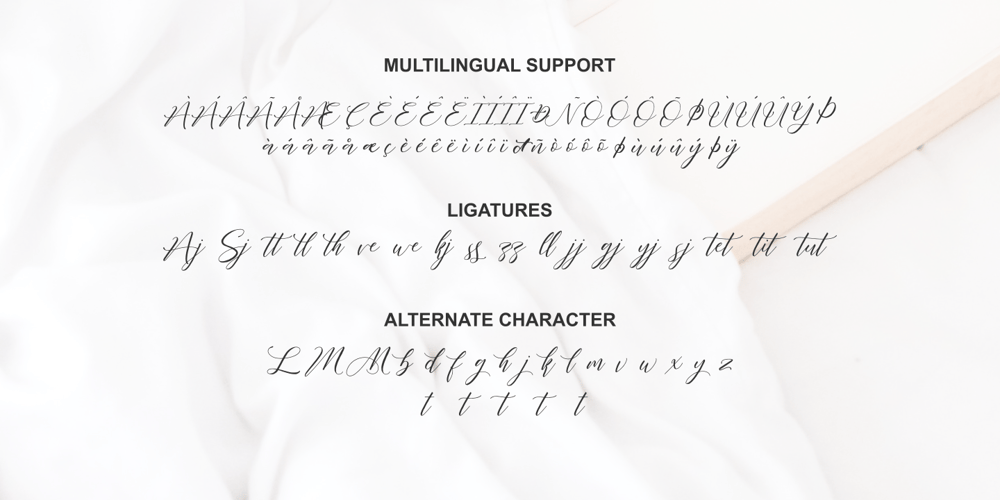
Fathir Script Font Family was designed by Abo Daniel and published by Abo Daniel. Fathir Script contains 1 styles and family package options. Fathir is made with a true real handwritten style. The font comes with three style of titling and ending swash. It is very easy to access the swash characters even if you don’t use pro software. The sample images show you the possibilities. Fathir is perfect for branding, quotes, logo, invitation, packaging, business card, and more. I hope you love this lovely font. Regards, Abo Daniel